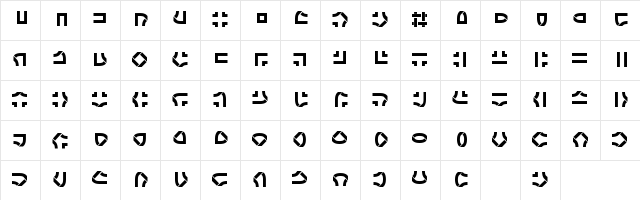
Celtic Knot 1 Regular
| Foundry | Frauke Smit |
| Designer | Frauke Smit |
Design Context for Celtic Knot 1 Typeface
Celtic Knot 1 is a composed and adaptable typeface that performs quietly and consistently across a wide range of design contexts.